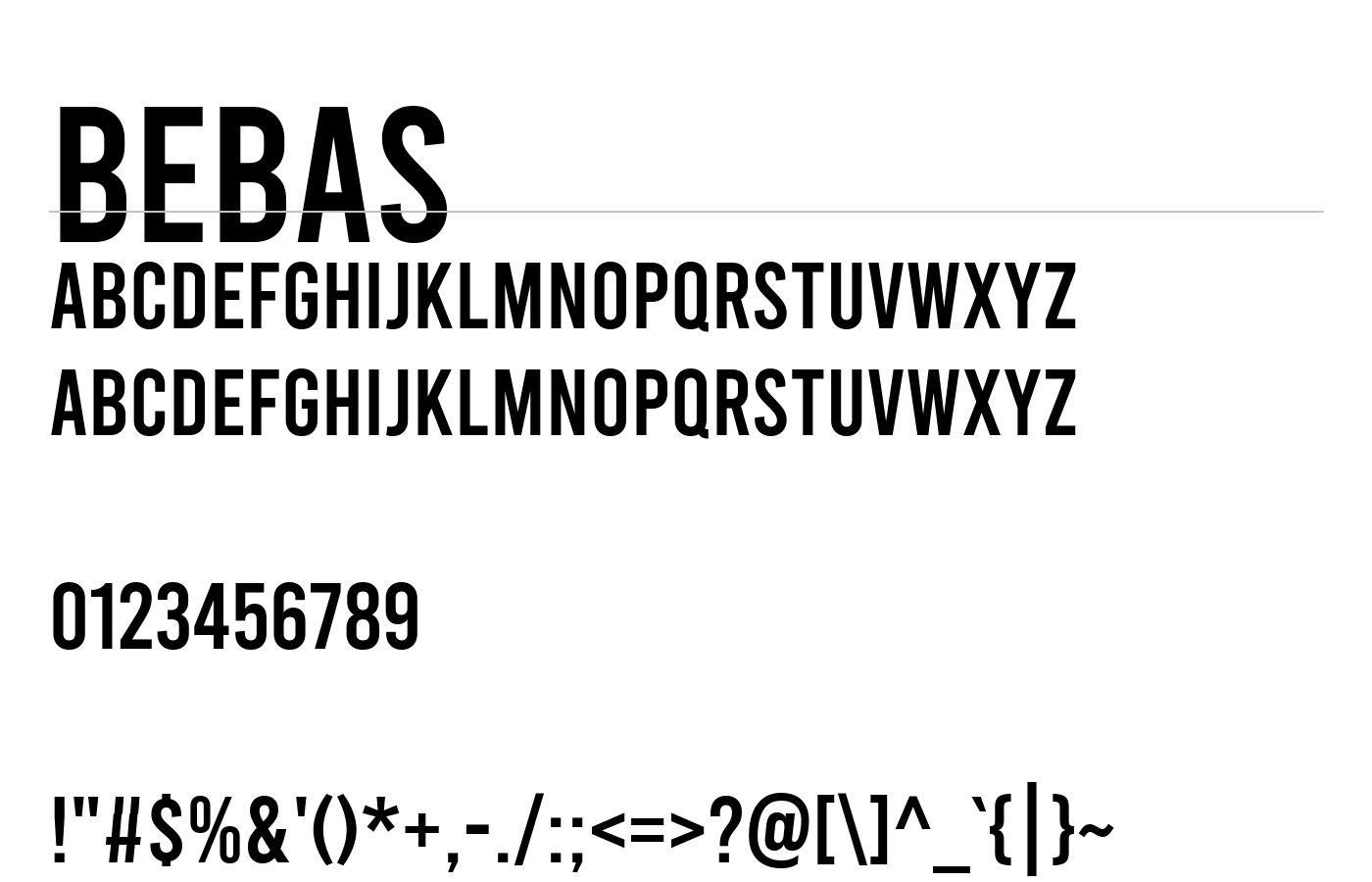
Bebas is a bold, condensed sans-serif font with clean, uniform strokes and a strong vertical emphasis. Its all-caps style and tall letterforms create a modern, impactful look that works especially well for headlines, logos, and branding where a confident, straightforward message is needed. This font’s simplicity and solid presence make it ideal for contemporary, urban, and industrial design projects.
Bebas Font
About Bebas Font
| Font family | Bebas Font |
| Designer | Ryoichi Tsunekawa |